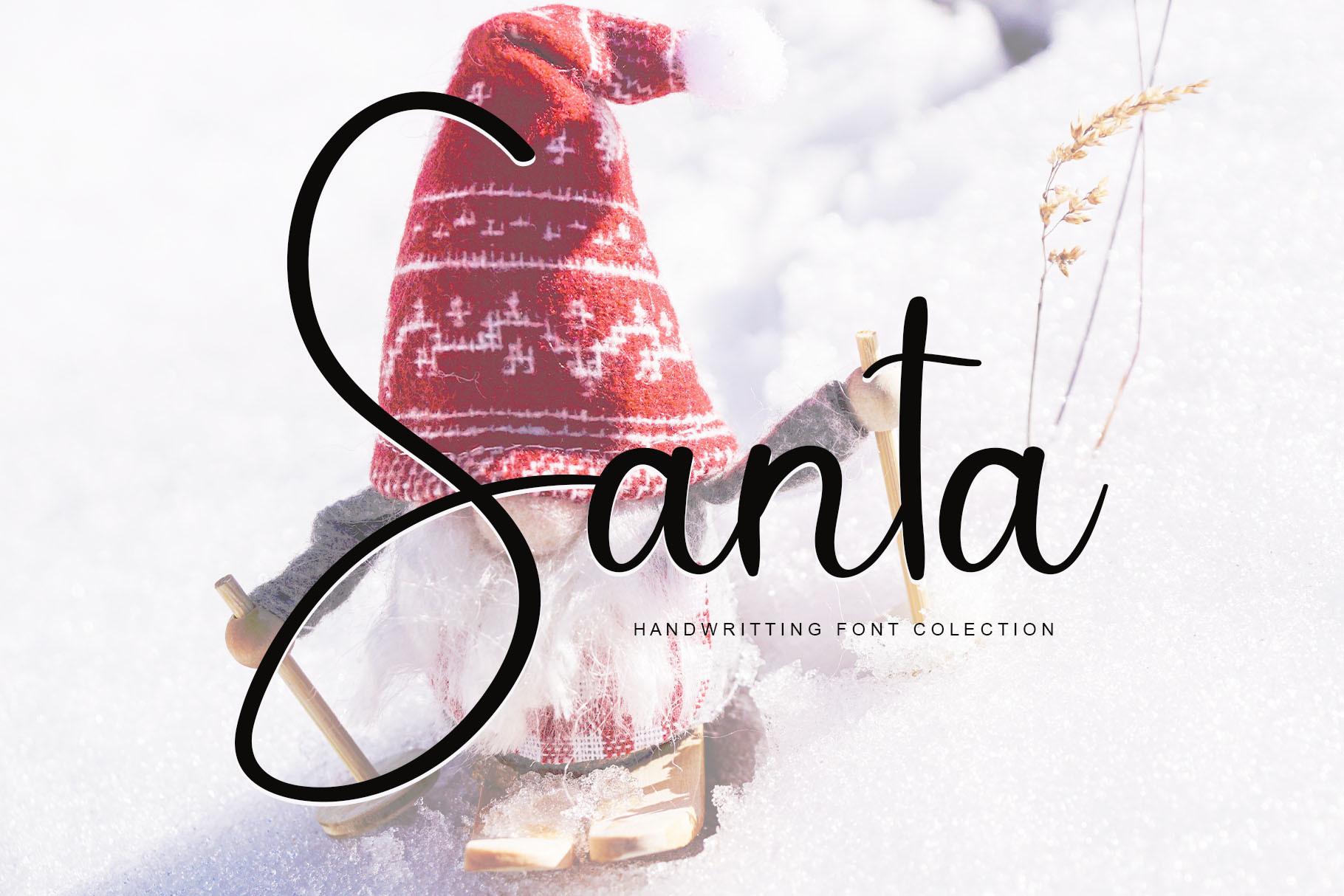
Santa Font Description
Santa is a simple and casual handwritten font, carefully designed to become a true favorite. It maintains its classy calligraphic influences while feeling contemporary and fresh. Fall in love with it and bring your projects to the highest levels!